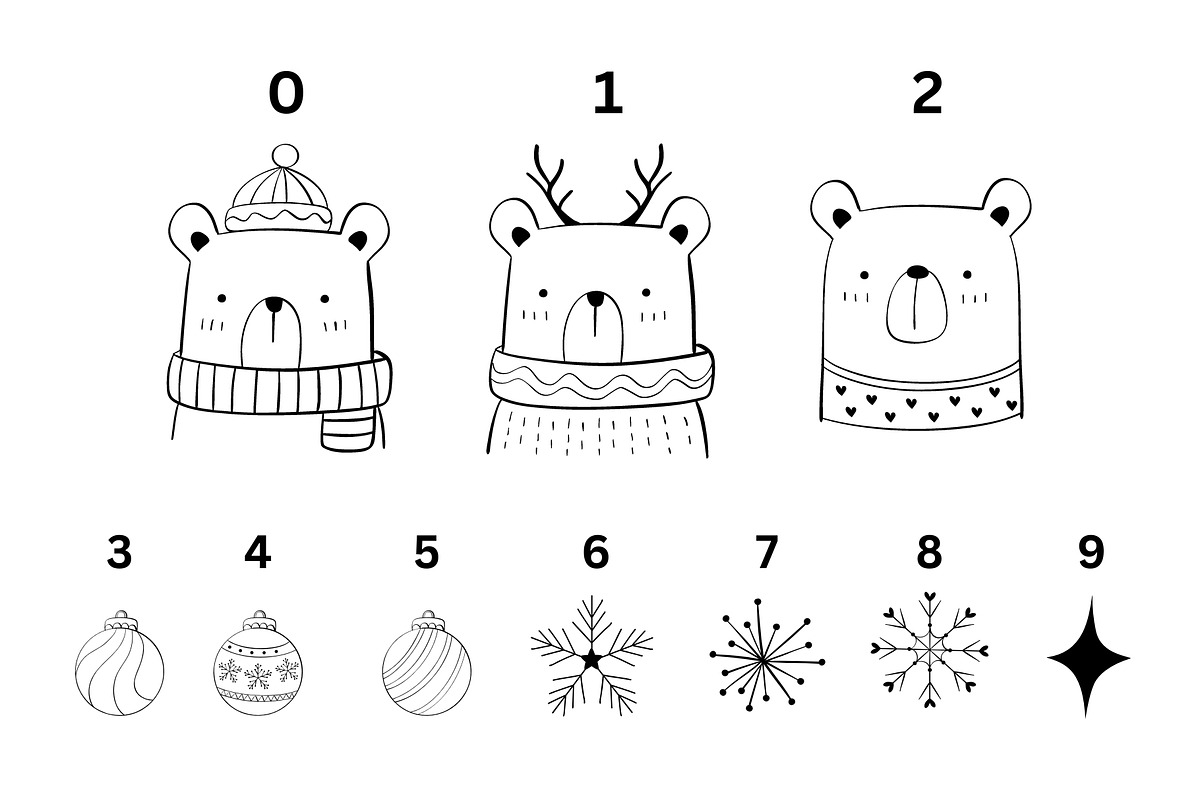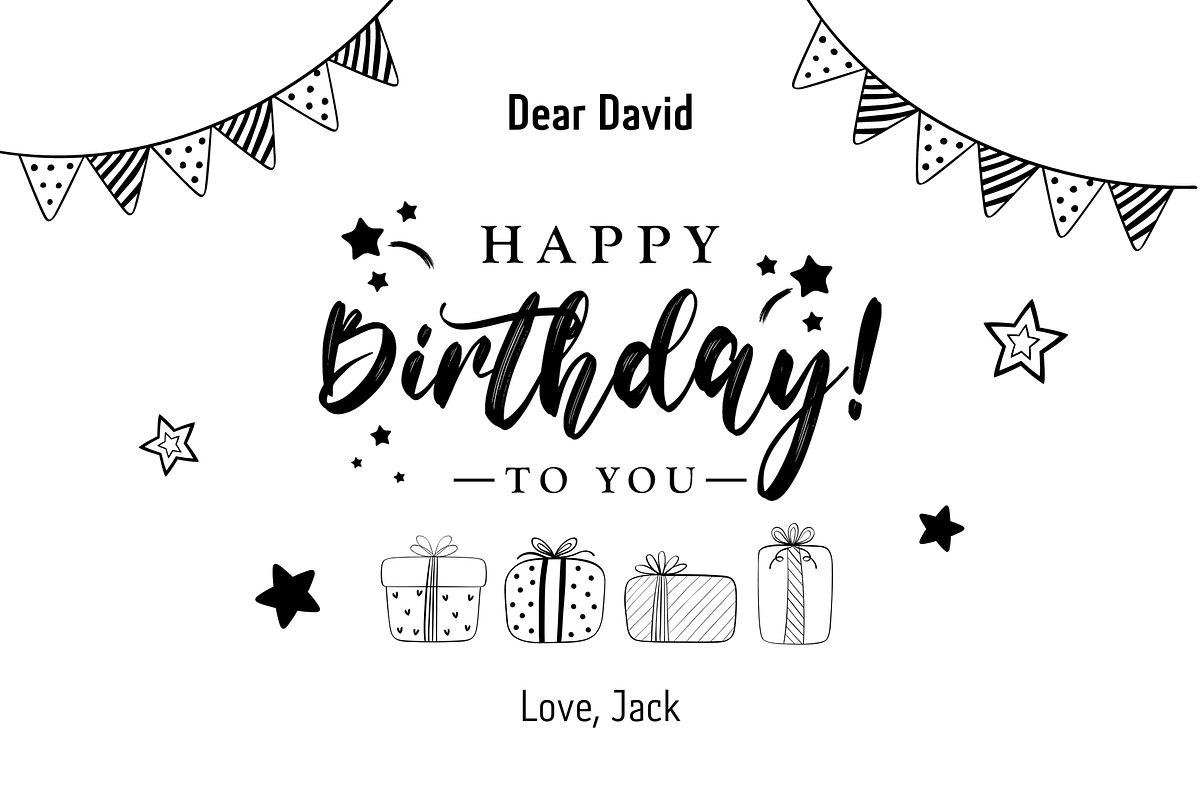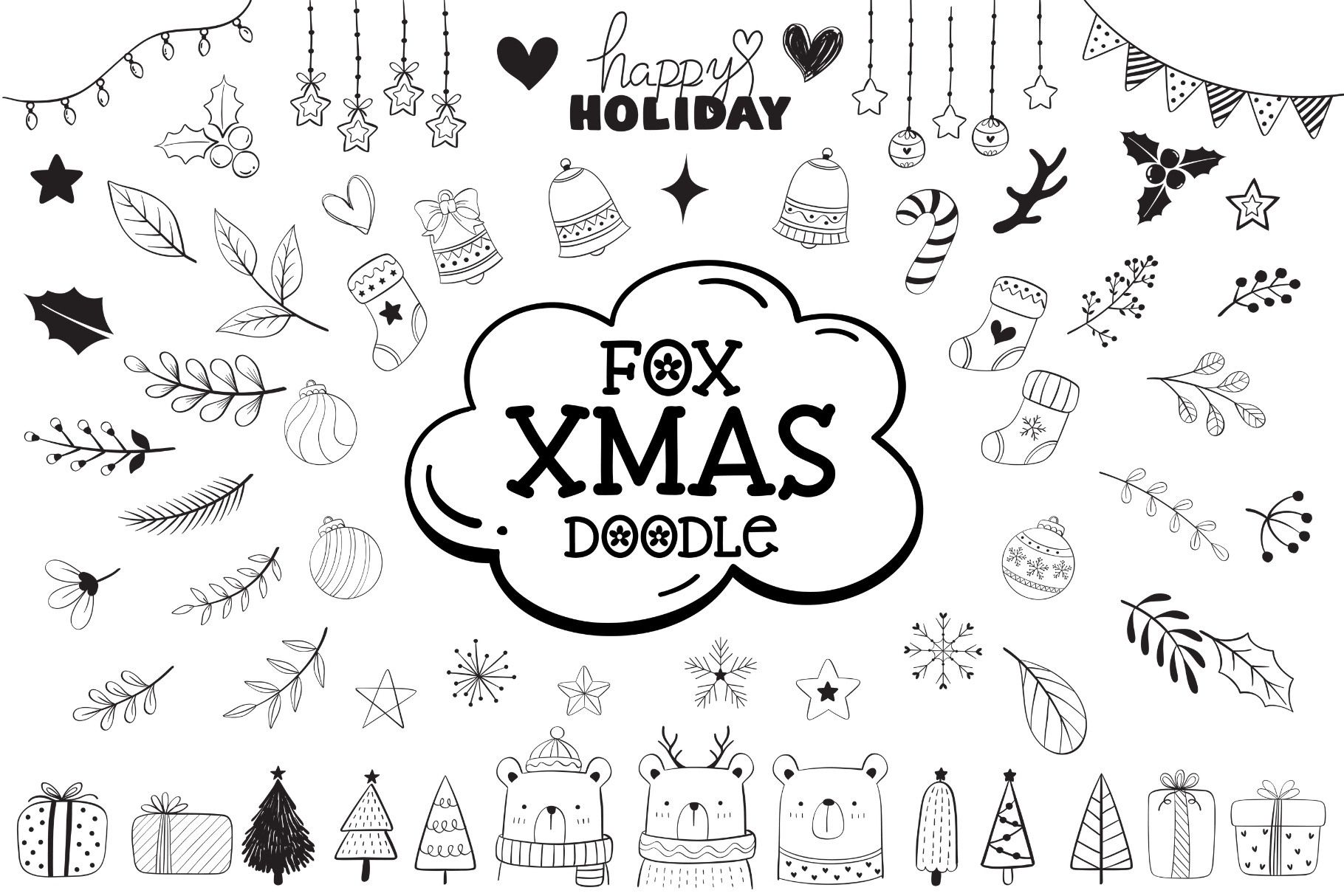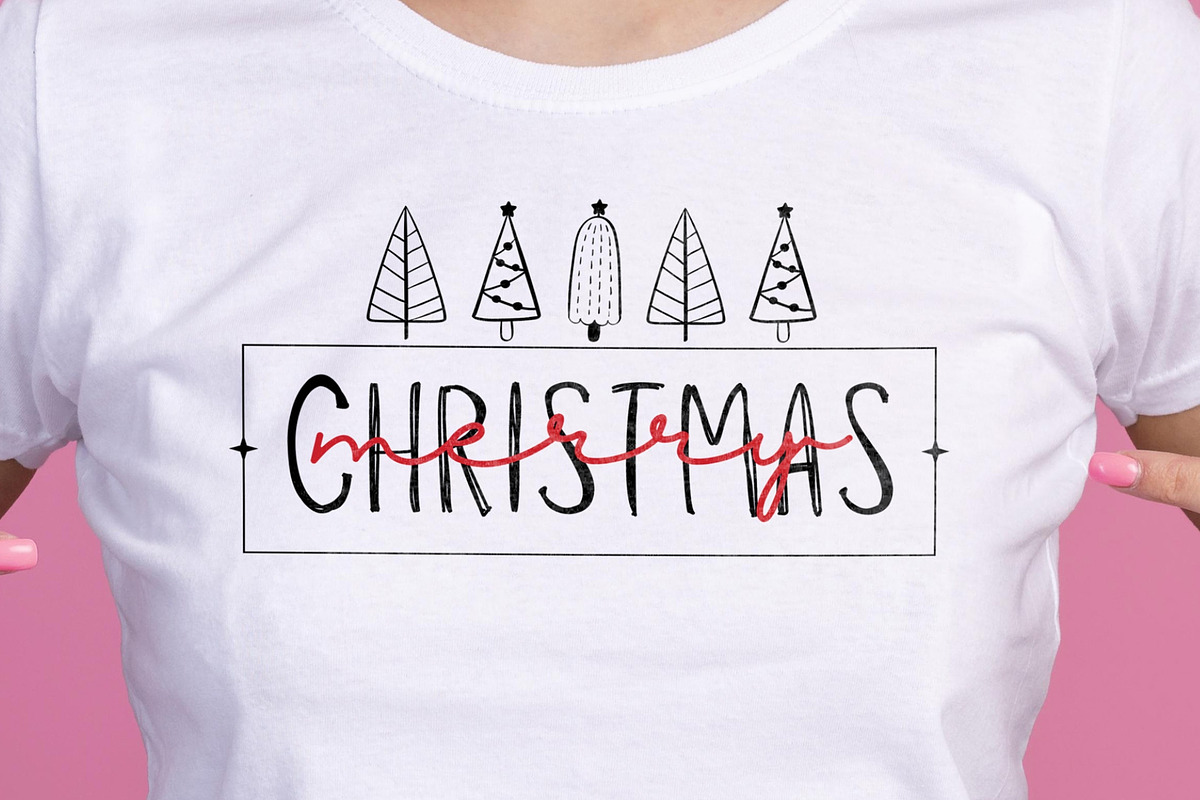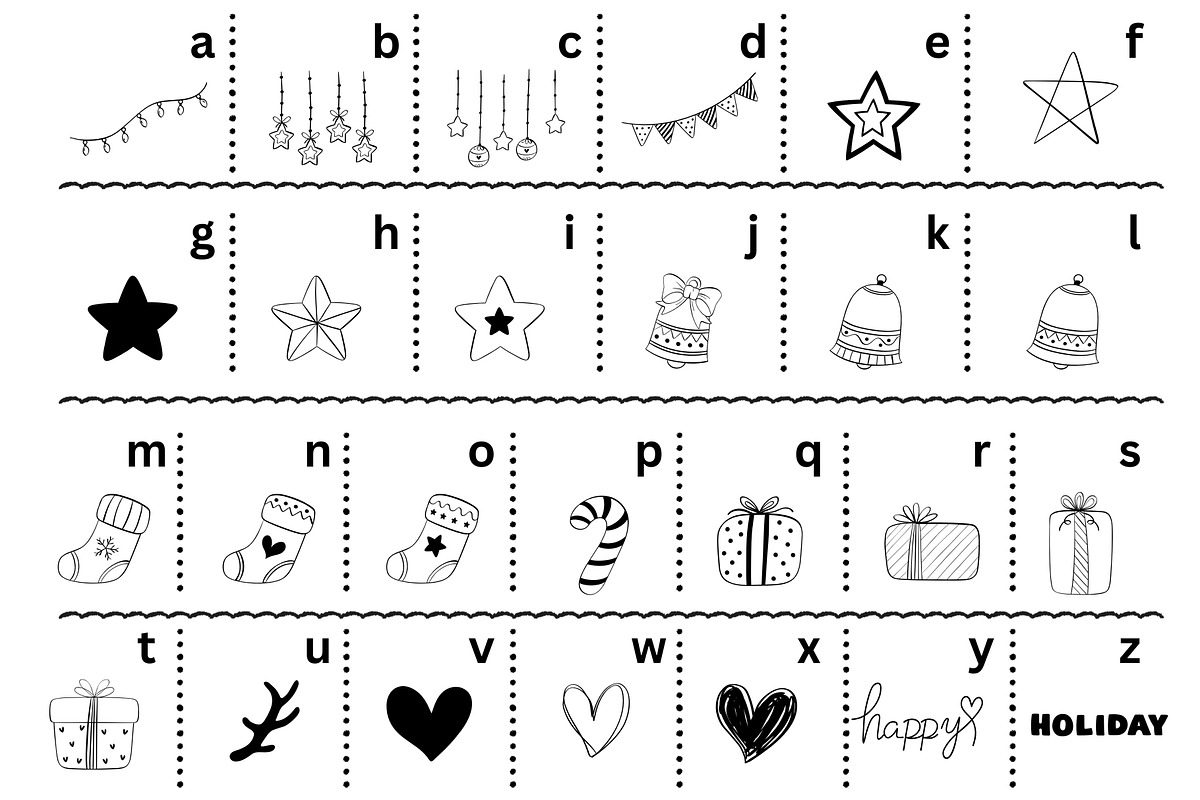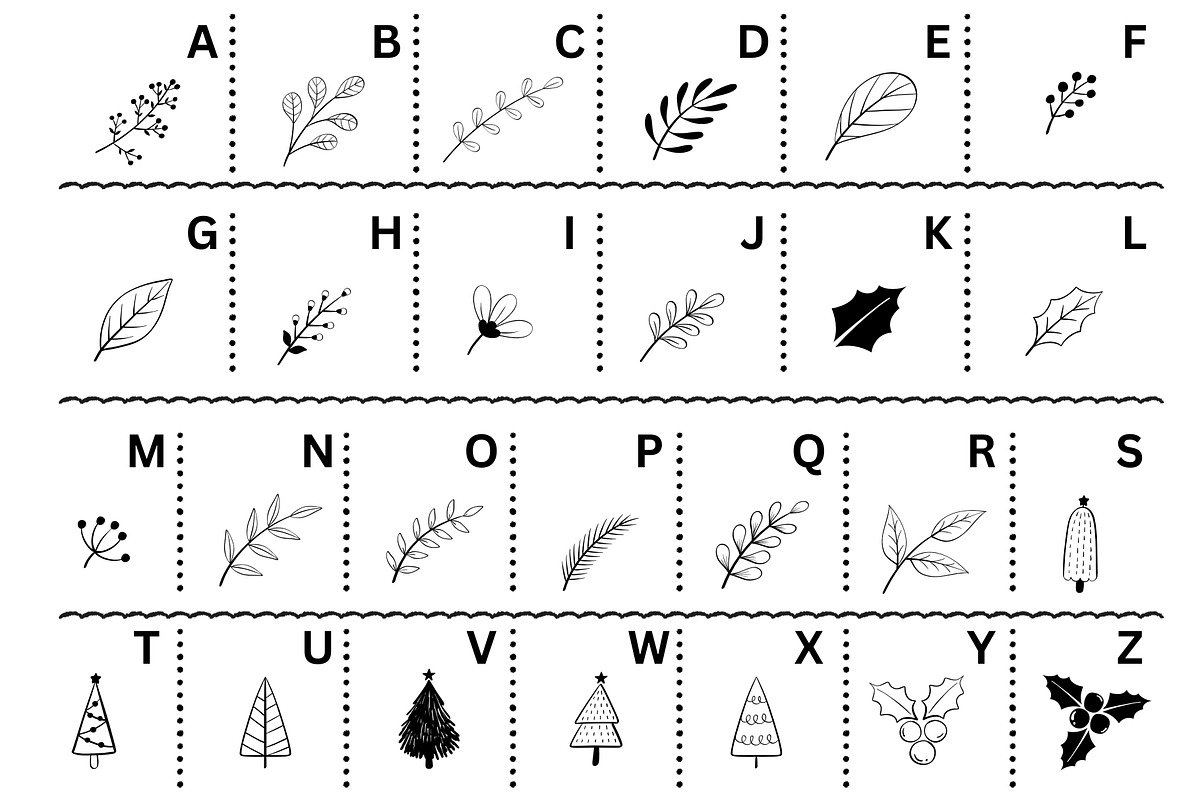
Fox Xmas Doodle Dingbat Font
Fox Xmas Doodle is a cute dingbat font specially designed for the Xmas season, Its versatility makes it great for a wide pool of craft projects, designs, planners, diaries, activity books, or anything that your heart desires. Add this beautiful doodle dingbat font to each of your creative ideas, and notice how it makes them stand out.